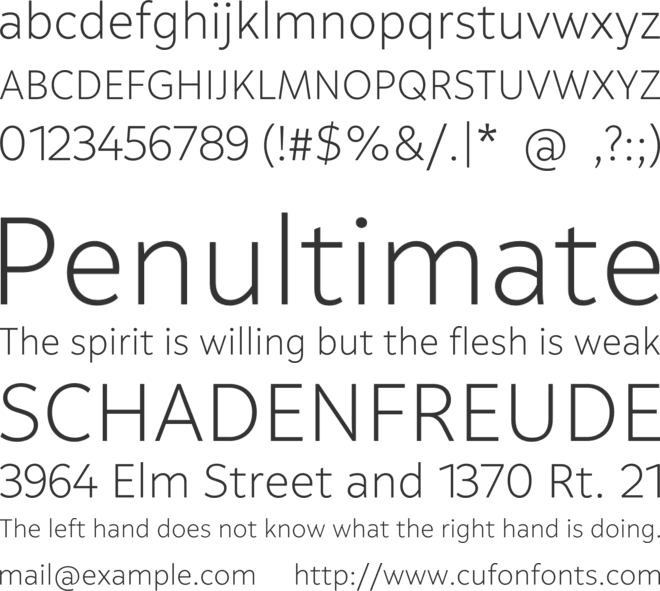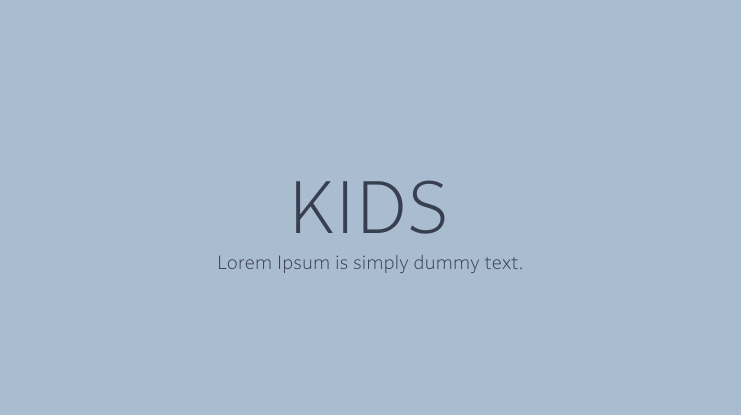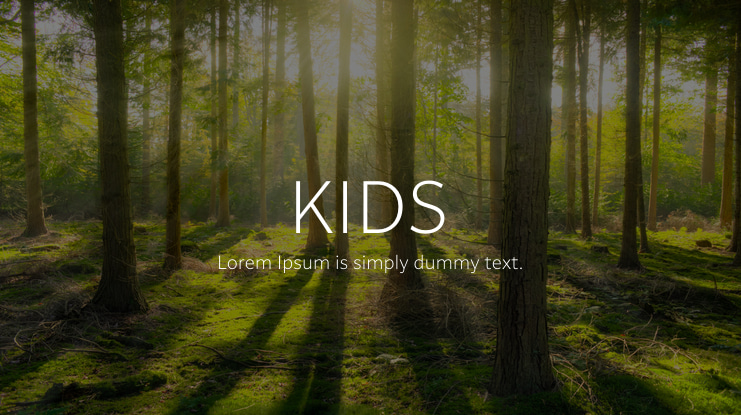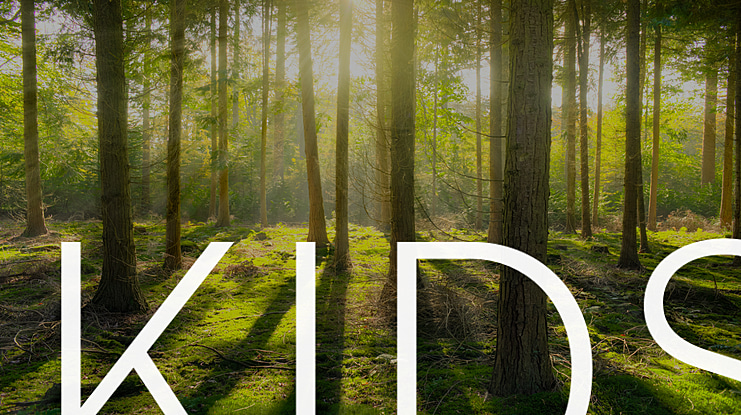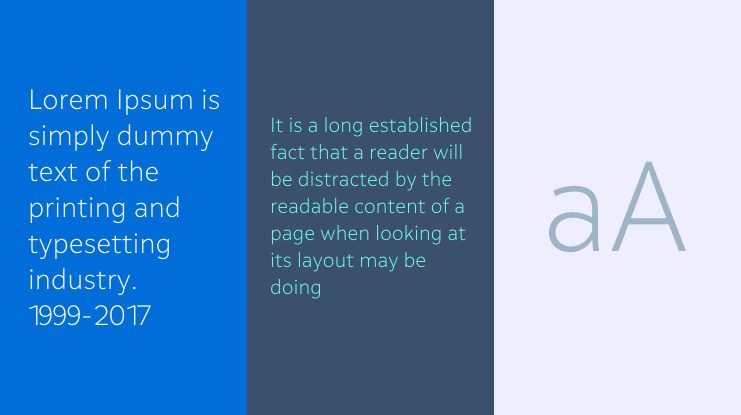
KIDS Font Family
This font is using on NewsSector at March 4th, and for the new look Televiziunea KIDS at March 8th, International Womens Day. This brand new typeface is inspired by Andreea Țopan.